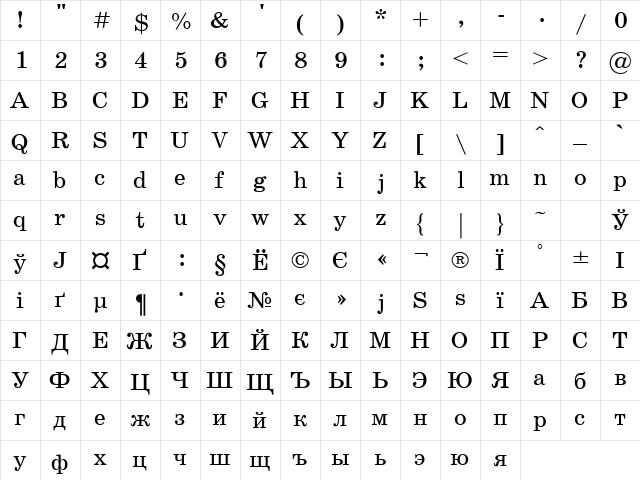
SchoolBookC Regular
Design Context for SchoolBookC Typeface
SchoolBookC takes a measured approach to typography — its balanced proportions and neutral character make it a reliable workhorse for both digital and print work.